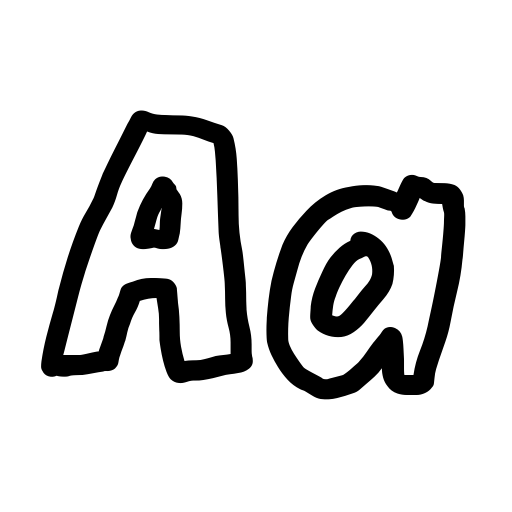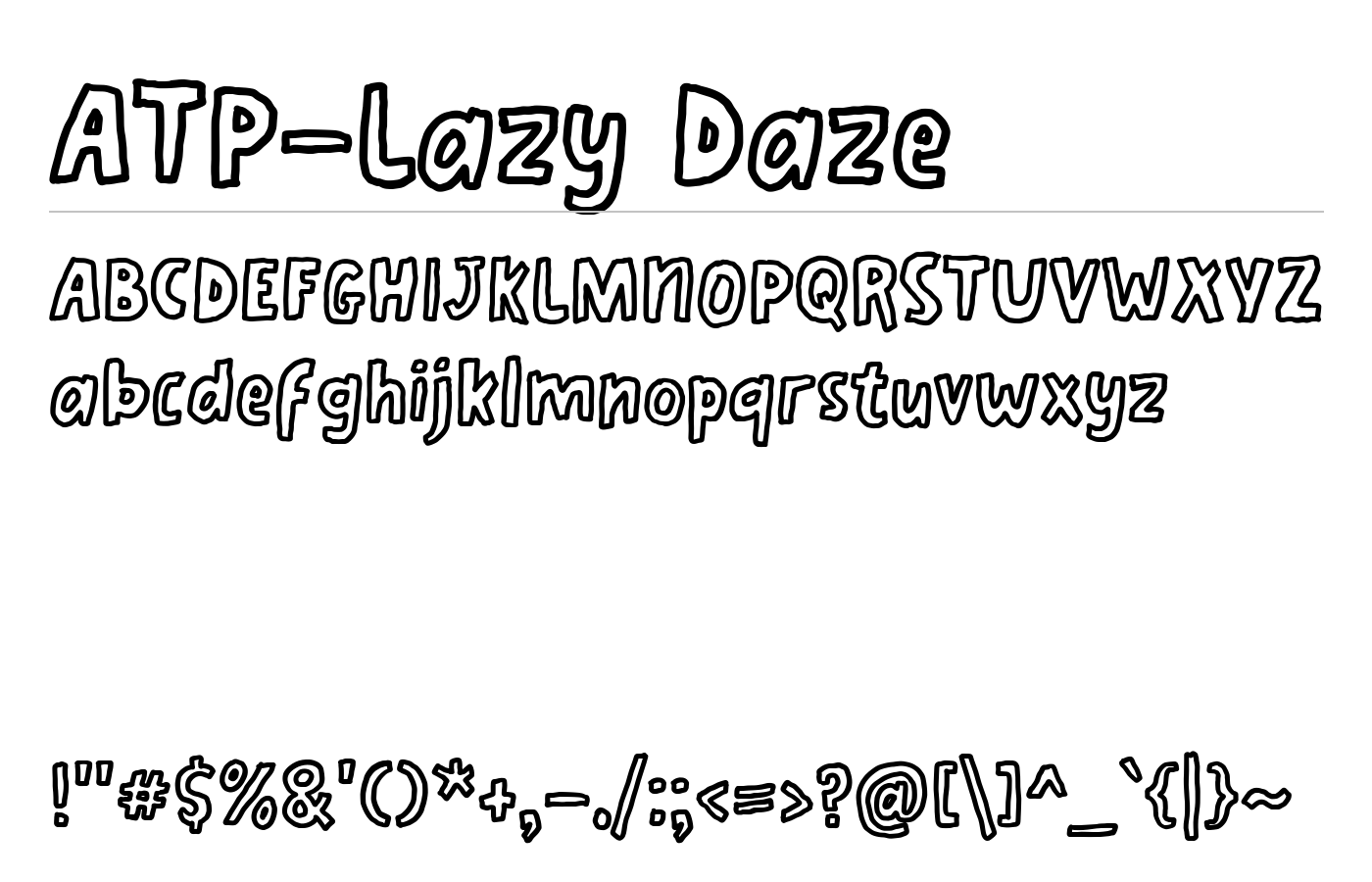
ATP-Lazy Daze is a playful, hand-drawn sans serif font with a casual, relaxed vibe. Its slightly uneven strokes and rounded shapes give it a friendly and informal feel, making it perfect for fun, creative projects like children's books, posters, or casual branding. This font works best where a laid-back, approachable look is desired, adding a touch of whimsy without sacrificing legibility.
ATP-Lazy Daze Font
About ATP-Lazy Daze Font
| Font family | ATP-Lazy Daze Font |
| Designer | typeparties |